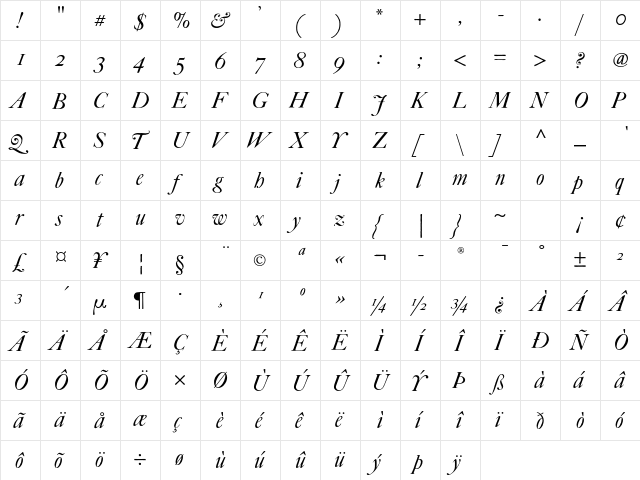
FCaslon Fortytwo ITC Std Italic
| Designer | Justin Howes |
Design Context for FCaslon Fortytwo ITC Std Typeface
FCaslon Fortytwo ITC Std takes a measured approach to typography — its balanced proportions and neutral character make it a reliable workhorse for both digital and print work. The slanted form adds forward momentum and visual energy.
Pro Tip: Try FCaslon Fortytwo ITC Std for annotation and caption copy alongside an upright companion — the contrast in angle creates a dynamic but ordered typographic system.